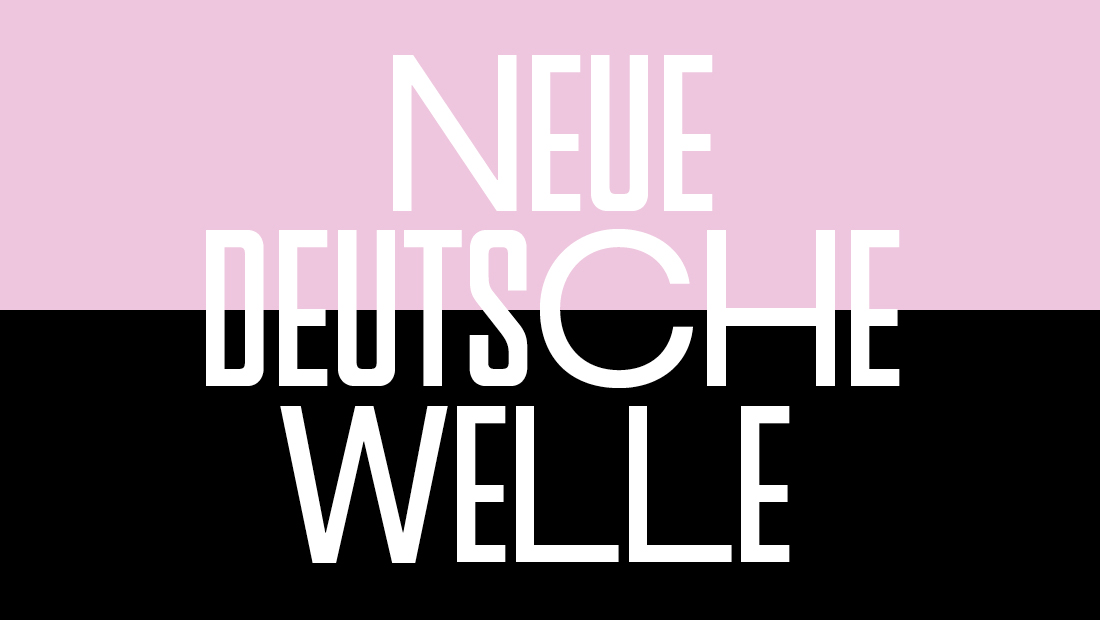
Back Story: Vassiliou used a typeface featured in Parachute’s 2001 print catalog as the starting point for Venue, seeking to add more edge and energy to the original’s narrow letterforms. Additional inspiration came from sans serif type styles of the Art Deco movement, characterized by low and high-waisted monostroke designs. A third set of visual cues drew upon the grotesque typefaces used on 1950s Blue Note album covers.
Why’s it called Venue? The underground music scene’s penchant for non-conformity, freedom of spirit, and disregard for rules led to the name of this typeface, dedicated to anyone who’s a rocker at heart. “The word Venue strikes the exact musical hint I was looking for,” says Vassiliou.
What are its distinguishing characteristics? Venue and Venue Condensed feature an overly large x-height and several options for alternate letterforms, including some that are more than twice as wide as the standard versions, providing an arresting visual rhythm and texture when set in uppercase. Other alternates can change specific letterforms from low-waisted to high-waisted, or transform normal uppercase letters to underlined superiors. The full collection supports upper and lowercase Latin, Greek, and Cyrillic, and each family includes five weights plus five sets of alternate letterforms. Still want more? It comes with a stencil version, too.
What should I use it for? Venue works for both print and digital uses, and is especially well-suited to projects for the modern music industry.
What other typefaces do you like to pair it with? Venue’s assertively odd personality mixes well with subtle, clean grotesques such as PF Das Grotesk, monoline cuts like PF Bague Sans, or classic serifs like Plantin.